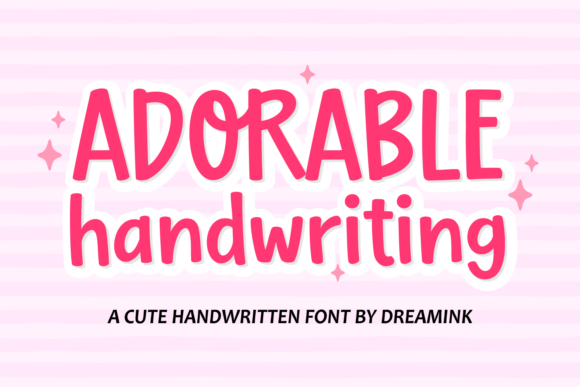
Spread Joy and Friendliness with Adorable Handwriting Font
Have you ever been in the middle of a design project, and suddenly, you’re stuck on finding the perfect font? I recall a recent experience where I was working on a nursery wall art project for a client, and I just couldn’t find a font that conveyed the warmth and playfulness I was looking for. That’s when I stumbled upon Adorable Handwriting font, and it instantly became the perfect fit. In this article, we’ll dive into the world of Adorable Handwriting font, exploring its features, uses, and how to make the most of it in your designs.
A Personal Review of Adorable Handwriting Font
• ✨ Exceptional Legibility: The rounded, soft edges and consistent weight of Adorable Handwriting font make it incredibly easy to read, even at smaller sizes.
• ✅ Cute and Playful: This font is perfect for designs that require a youthful and approachable personality, making it ideal for nursery wall art, children’s book layouts, and playful product packaging.
• 💕 Versatility: Adorable Handwriting font pairs well with bright, pastel color palettes and whimsical illustrations, giving you endless possibilities for creative expression.
While Adorable Handwriting font is an excellent choice for many projects, there are a few things to keep in mind:
• ⚠️ Limited Formality: Due to its playful nature, Adorable Handwriting font may not be the best fit for formal or professional designs.
• 🤔 Glyph Limitations: As with any font, there may be limitations to the number of glyphs available, which could impact your design choices.
The Backstory of Adorable Handwriting Font
While the true story behind Adorable Handwriting font remains a mystery, it’s easy to imagine that it was created with the intention of spreading joy and friendliness through design. Perhaps a designer, inspired by the sweet handwriting of childhood memories, set out to create a font that would capture the essence of playfulness and innocence.
Q: What is Adorable Handwriting font best suited for?
A: Adorable Handwriting font is perfect for designs that require a youthful and approachable personality, such as nursery wall art, children’s book layouts, and playful product packaging.